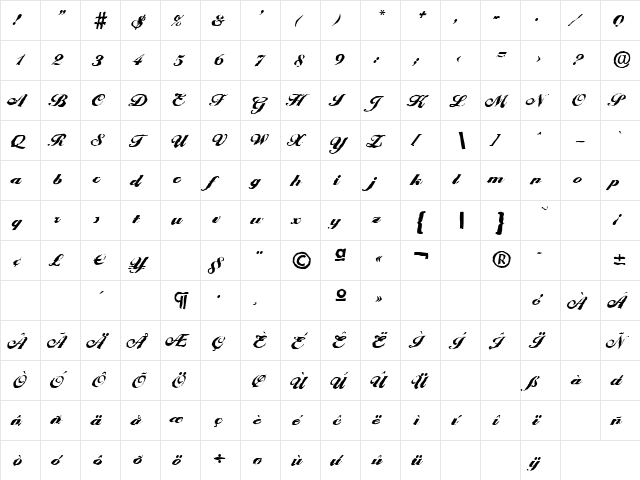
NicholasBeckerAntique-Black Regular
Design Context for NicholasBeckerAntique-Black Typeface
NicholasBeckerAntique-Black wears its vintage influences proudly, with letterforms that recall mid-century signage, classic packaging, and nostalgia-driven design.
Font Pairing: Combine NicholasBeckerAntique-Black with a simple slab or neutral sans — period-accurate companions reinforce the vintage feel without competing for attention.
Pro Tip: Use NicholasBeckerAntique-Black for headlines and pull quotes rather than body copy — its personality is best appreciated in short, focused bursts.